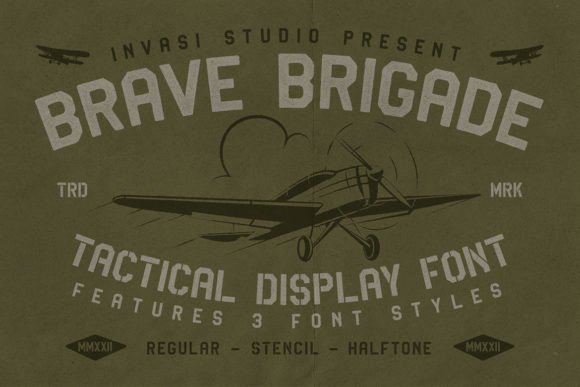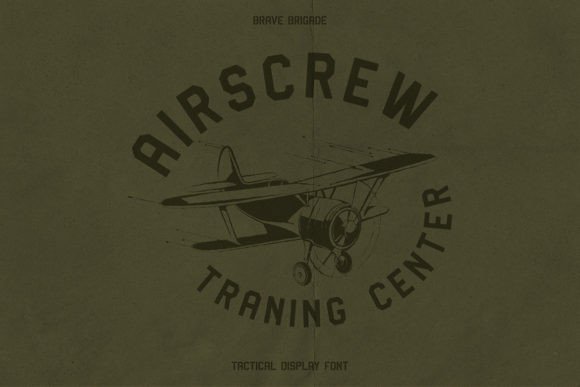
Brave Brigade Font
The Brave Brigade font is inspired by military uniforms and badges. Strong and unique this display font will brighten up each of your designs. Add it confidently to your projects, and you will love the results.